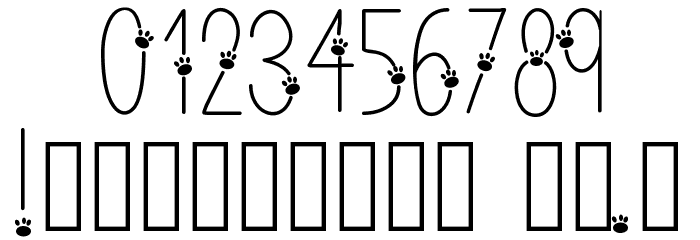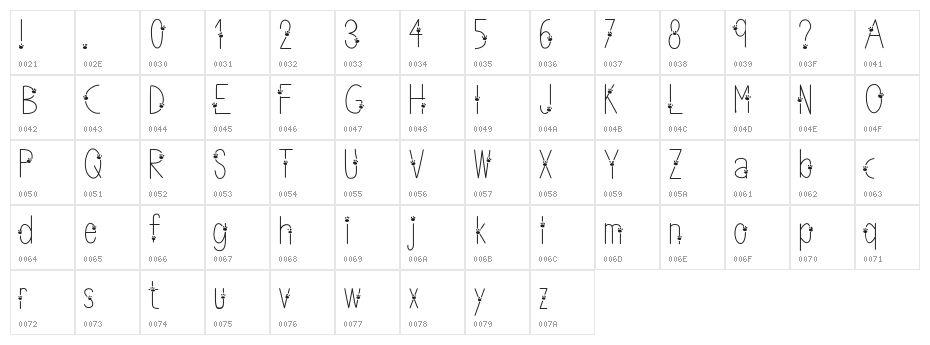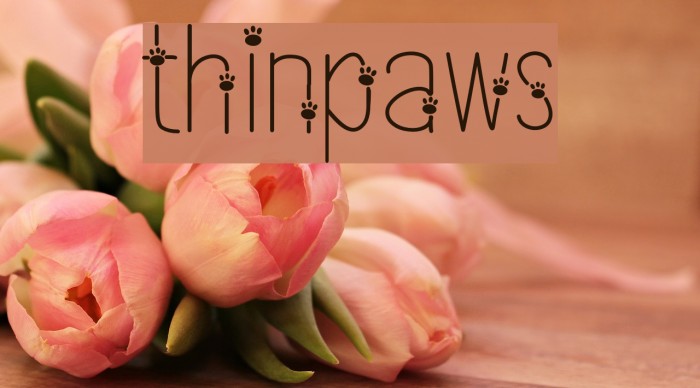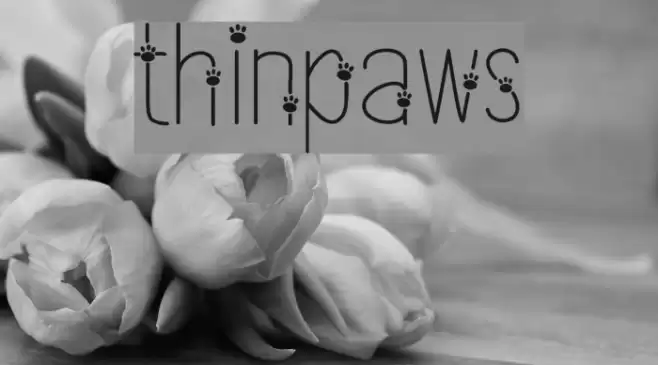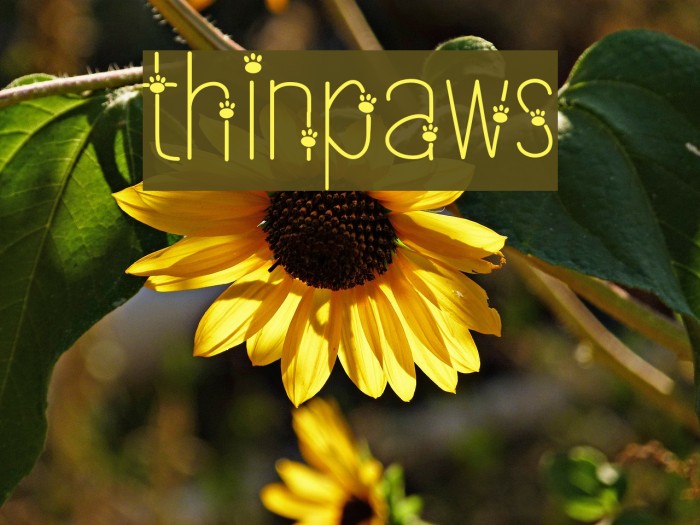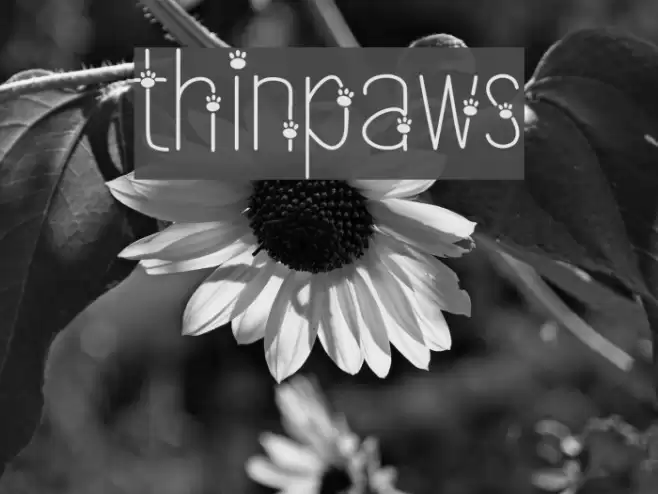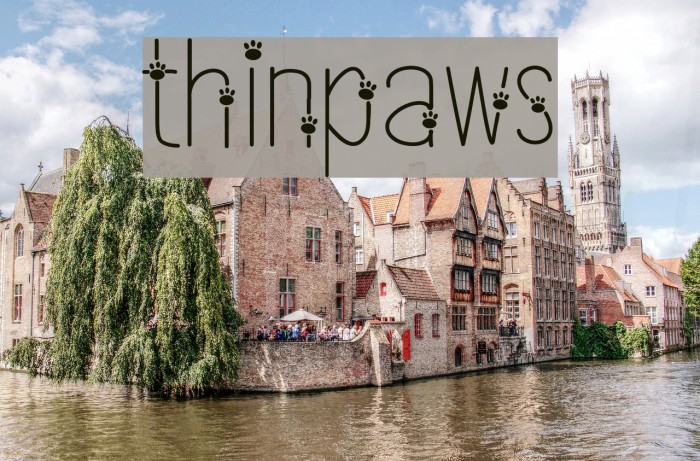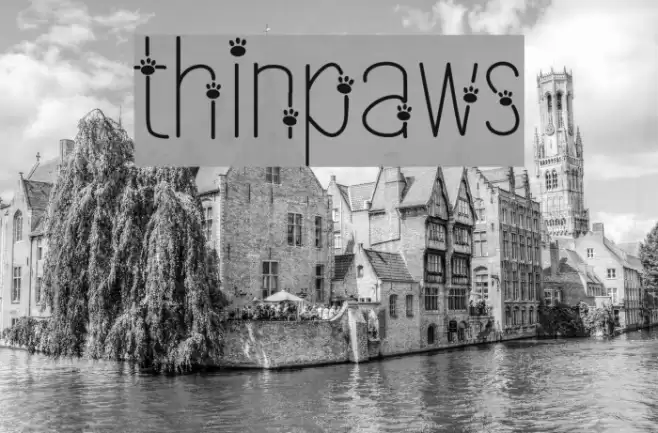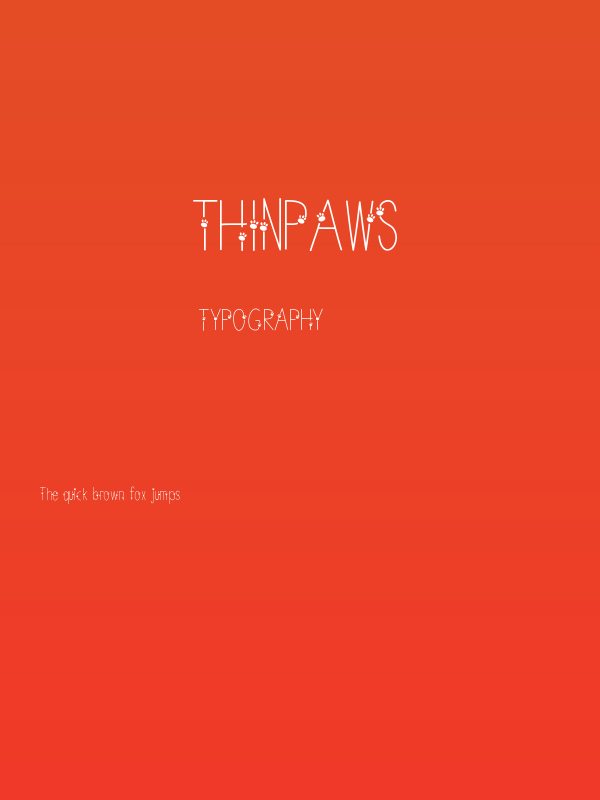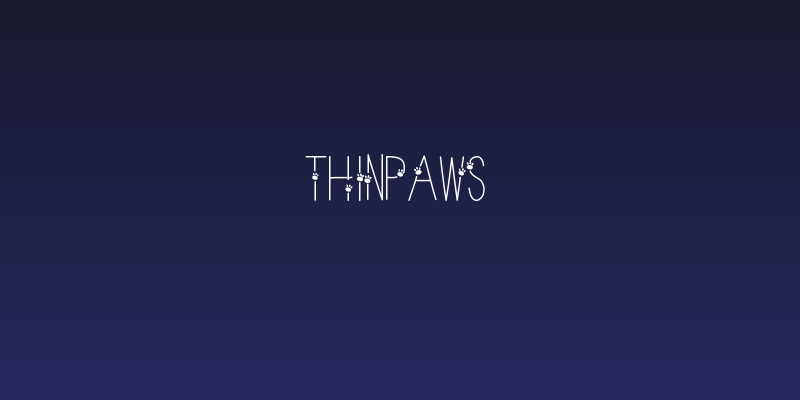
thinpaws Font
thinpaws Description
This playful and whimsical font features thin, elongated characters with unique paw print embellishments integrated into each letter and number. The design is light-hearted and charming, making it ideal for projects that require a fun and friendly touch. The characters are evenly spaced, with a consistent stroke width that maintains readability while adding a decorative flair. The inclusion of paw prints adds a distinctive personality, making it particularly suitable for pet-related themes or children's materials. The font maintains a clean and modern aesthetic despite its playful elements.
| Proposed Projects | Ideal for pet-themed designs, children's books, playful branding, and invitations. |